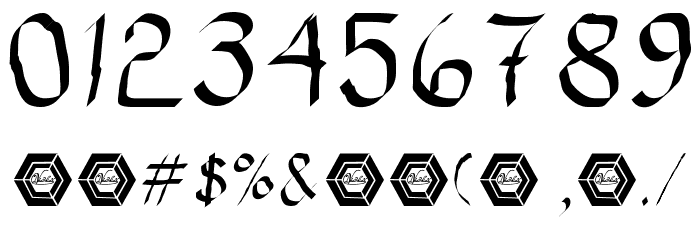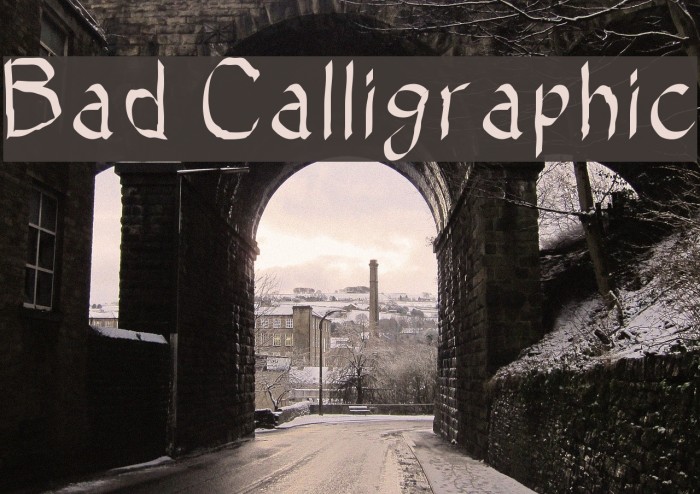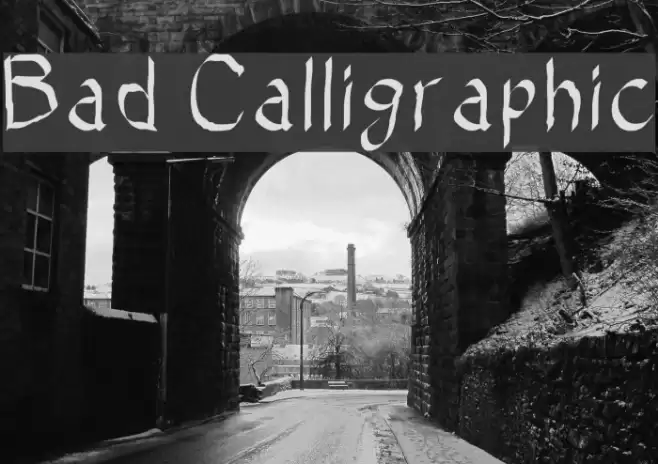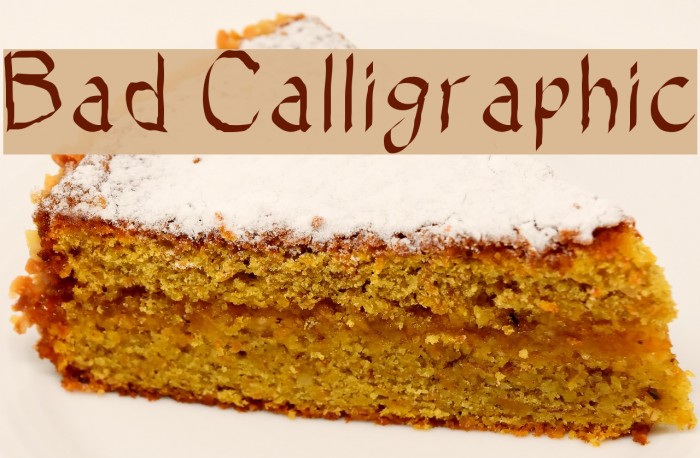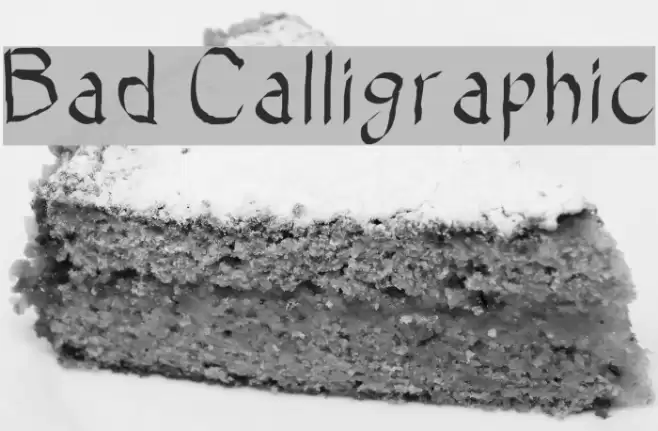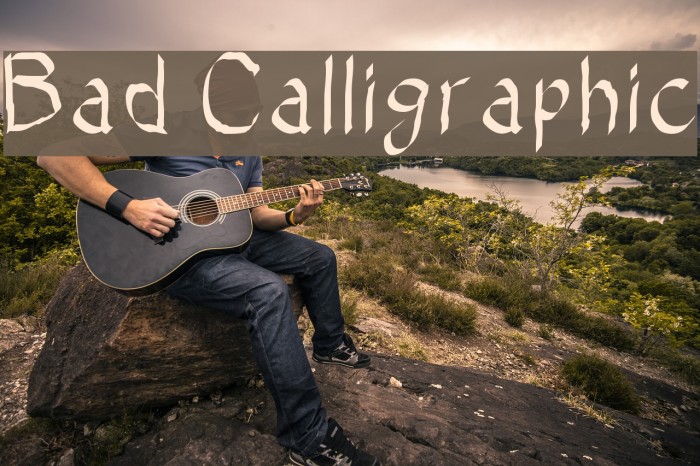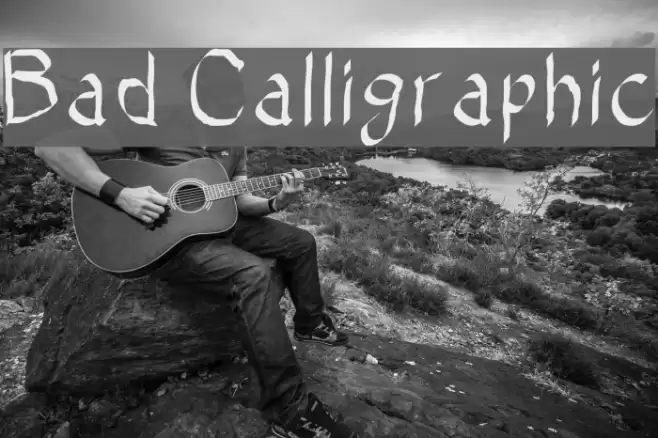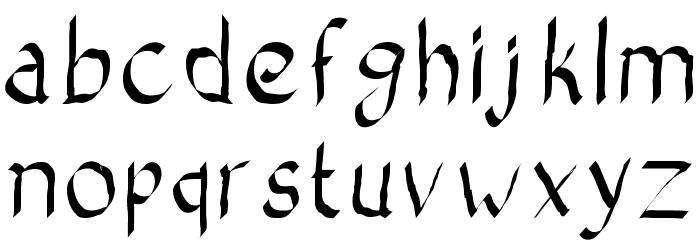
Bad Calligraphic Font
Bad Calligraphic Description
This font features a unique calligraphic style with a modern twist. The characters exhibit sharp, angular strokes combined with smooth curves, creating a dynamic and artistic appearance. The uppercase letters are bold and commanding, while the lowercase letters maintain a consistent flow, enhancing readability. Numbers and special characters are designed with the same artistic flair, making them stand out. The overall aesthetic is both elegant and edgy, suitable for projects that require a distinctive and creative touch.
| Use Case | Logos, Headlines, Artistic designs |
| Proposed Projects | Ideal for creative projects such as branding, invitations, posters, and artistic designs. |